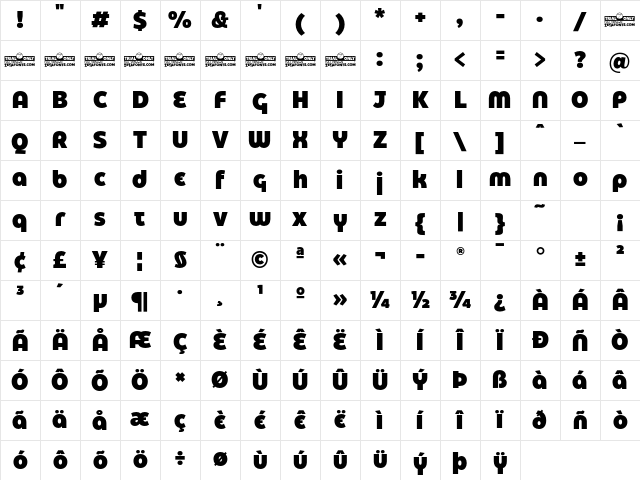
Complete Eastman Grotesque Alt Trial Black glyph index. Displaying only characters natively supported by Eastman Grotesque Alt Trial Black font.
Eastman Grotesque Alt Trial is a composed and adaptable typeface that performs quietly and consistently across a wide range of design contexts.